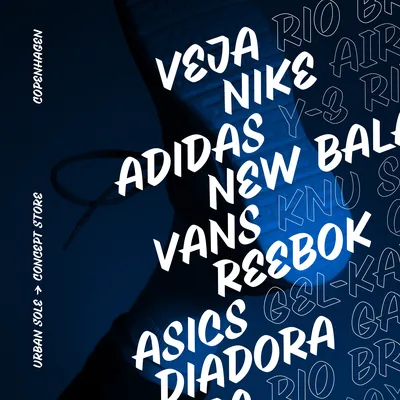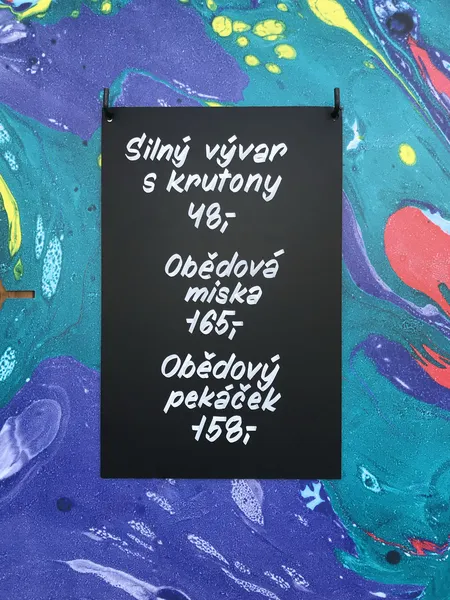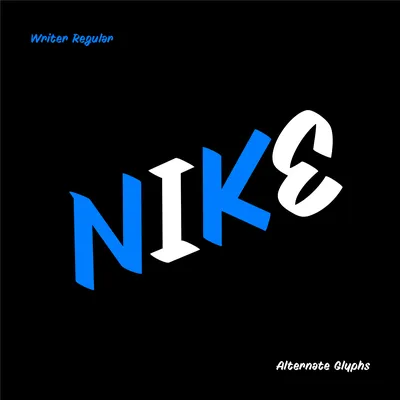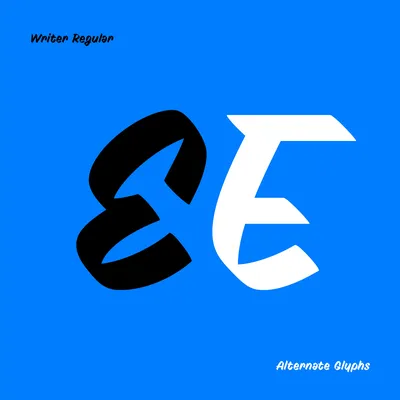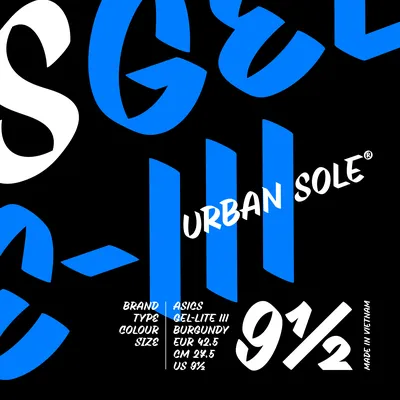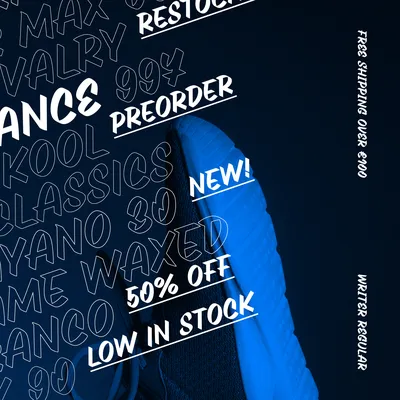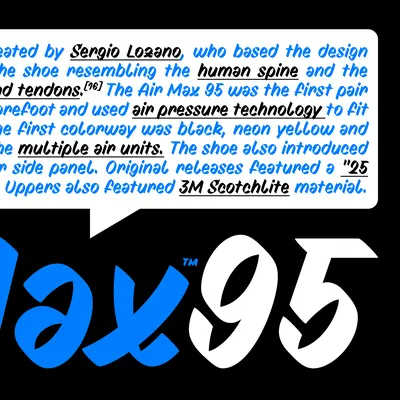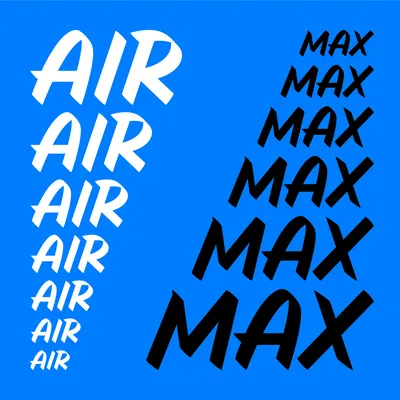
Writer is an unconnected script typeface written with a flat felt tip marker. The bevelled tip is natural for calligraphy. It allows for better grip ergonomics and a more flexible slant in the fingers and wrist. Option B is to use a writing tool with a straight tip, but it requires more experience and slightly changes the overall character.
Writer is one of my handwritten hand-outs from master's thesis (2016). I still use it in lettering workshops to teach how to turn the marker to achieve specific angle and stroke contrast. The principle of this script typeface is simple. The main stem, which determines the slope of the entire typeface, is led from the top right corner to the bottom left corner at an angle of about 60°. This slant makes it very swift and flexible to write. The oval strokes need speed so that the start and exit strokes overlap beautifully, and it is almost impossible to tell where the letter begins.
All the glyphs can be written in two or three brisk strokes at first, and by gradually simplifying the shape, adding speed, and increasing confidence in writing, the script can be brought to a form where each letter is written with only one single stroke. This also changes the character of the typeface: from the more geometrically austere through the freely written to the calligraphic. I chose the first rigid one to serve as a guide so that everyone can further adapt to their writing style. The final calligraphic form is up to the author and represents one way they can develop the hand-out.
The digitized script has strongly stylized strokes compared to the handwritten model. The primary stroke consists of a flat ellipsis (the impression of the felt tip marker), which makes a higher contrast. In the round strokes, there is a crease inside the eyes. The shapes of the lowercase a, b, d, p, and q are made without straight ascenders or descenders. Do not look for superfluous glyphs or features, the font is peculiar enough. Writer is suitable for menu signs and boards in cafes, bistros and restaurants. I'm curious to see how you gonna use it!
Full Name:PD Writer
Styles:1 – Regular
Type design:Petra Dočekalová
Designed:2016
Classification:Script, Casual
One of the original sketches with Molotow marker, 2016
Typeface Writer was used for multiple handwritten signboards at Grils, a grill restaurant in Prague, from 2018 to 2020. The staff learned the script during a workshop and applied it across various boards until the restaurant closed in 2020. The location is now home to the renowned restaurant Bufet, where I provided the same service, but with a different script style.